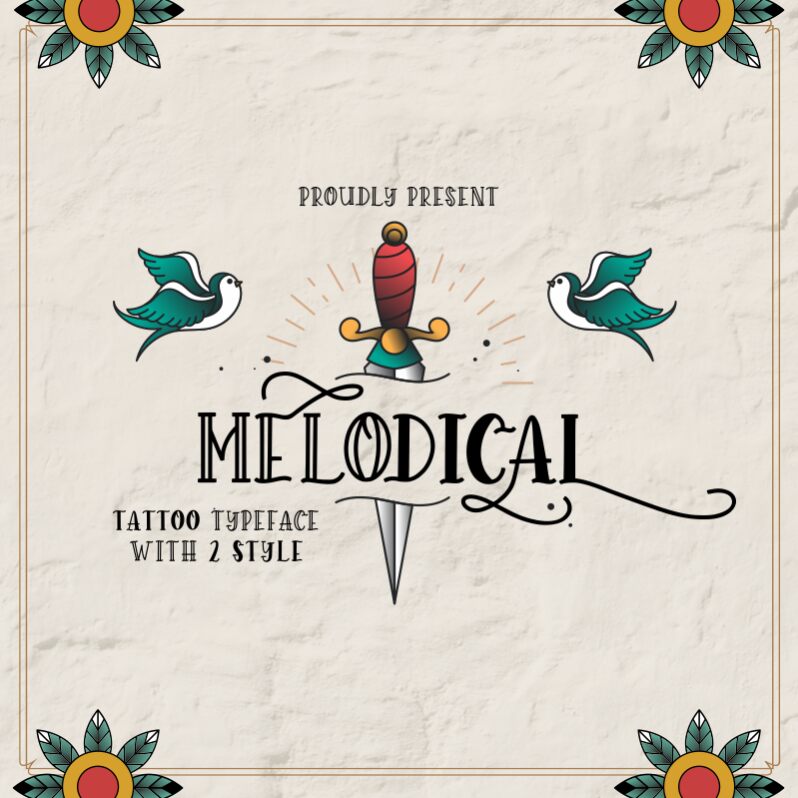
Melodical
Melodical, a retro display font by Qwrtype Foundry, is the perfect typeface for those looking to add a touch of vintage flair to their designs. Its semi-condensed width makes it ideal for headlines and titles, while its tattoo-inspired design adds a unique edge to any project. Use Melodical for album covers, posters, or even branding projects where you want to stand out from the crowd. Its bold and playful style will grab attention and make a lasting impression. Get creative with Melodical and let your designs sing!